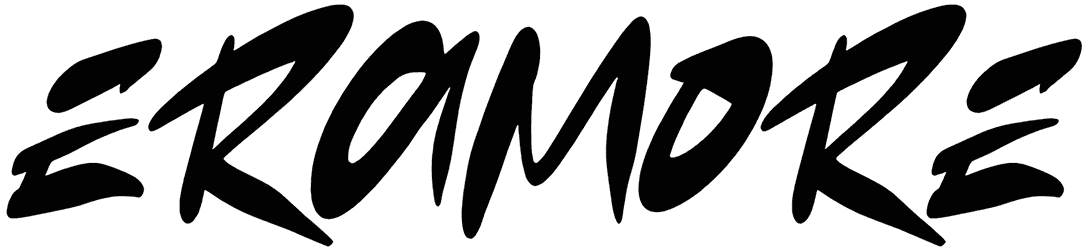
Eramore Font
With all the youthful energy that Eramore welcomes into your lettering, your work of art is bound to sound so lively and upbeat. Once applied to your text, this brush font works like magic and allows you to have all the attention to yourself.
Before you get this music font for your dance party posters, club flyers, and apparel, make sure you don’t mind that the numbers aren’t included or that only some of the letters have their lowercase pair.